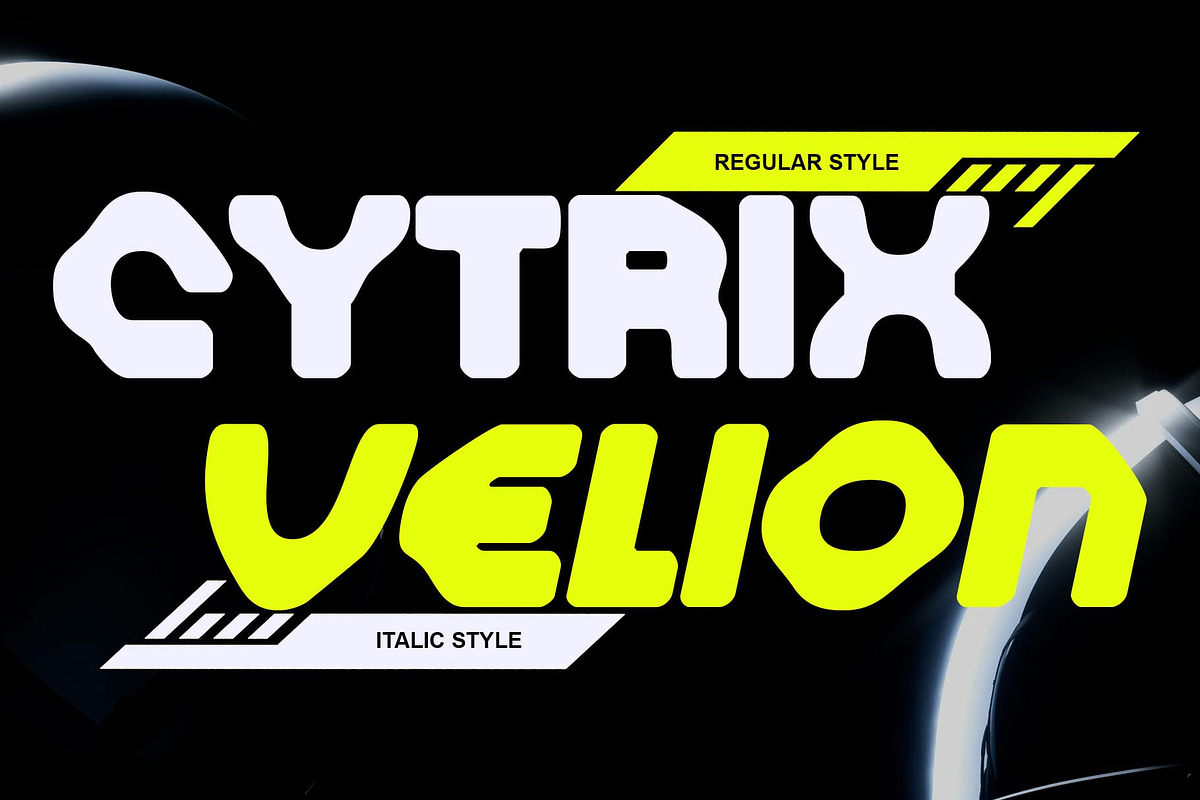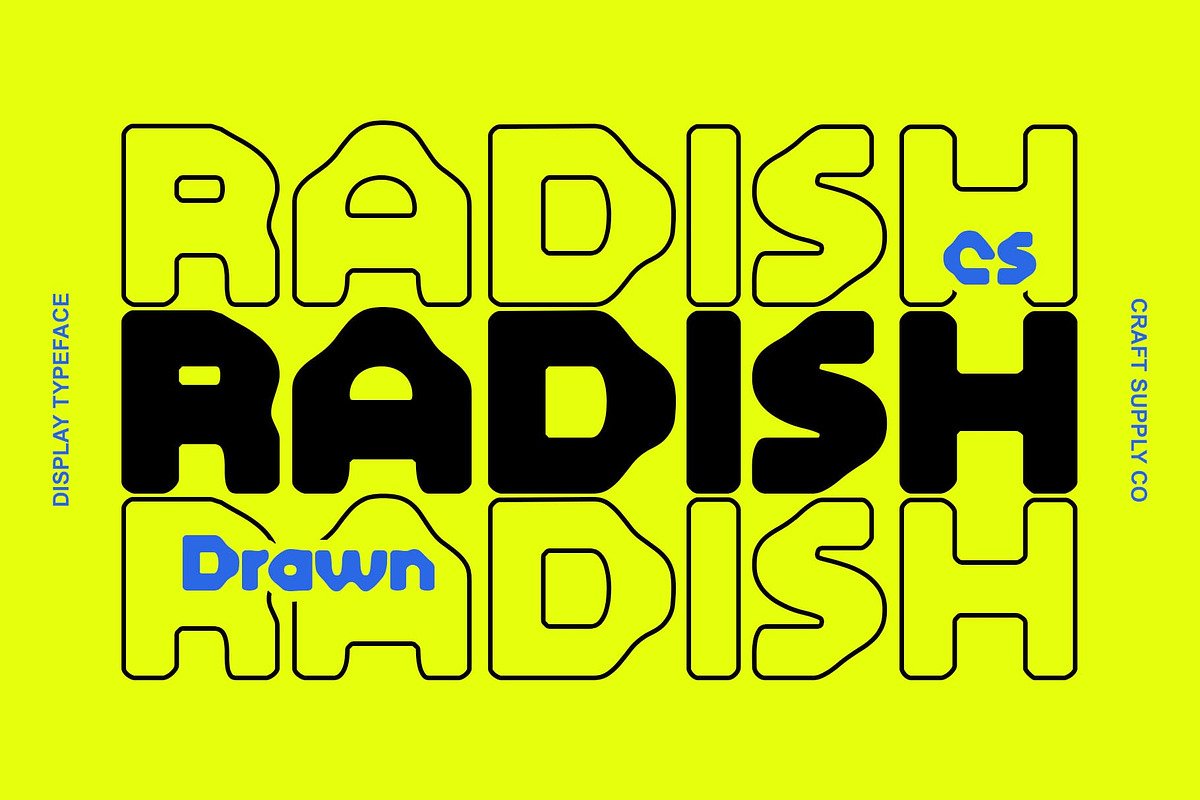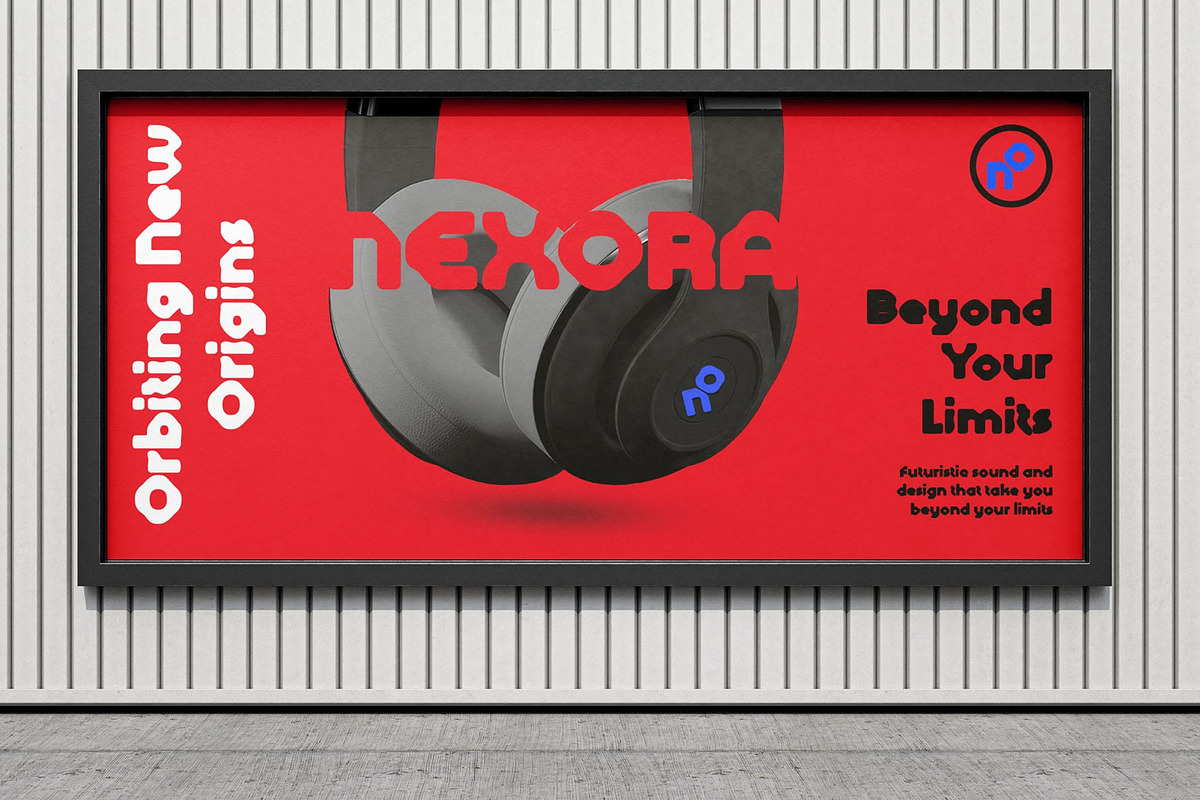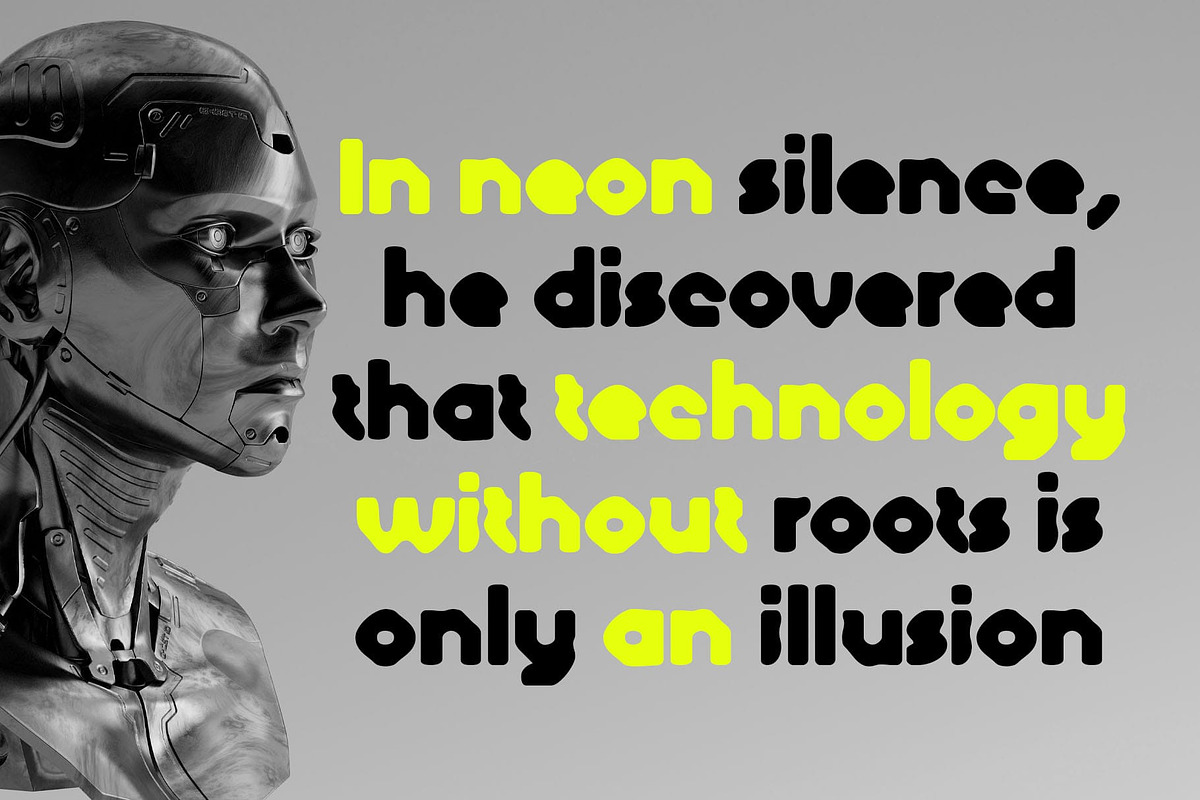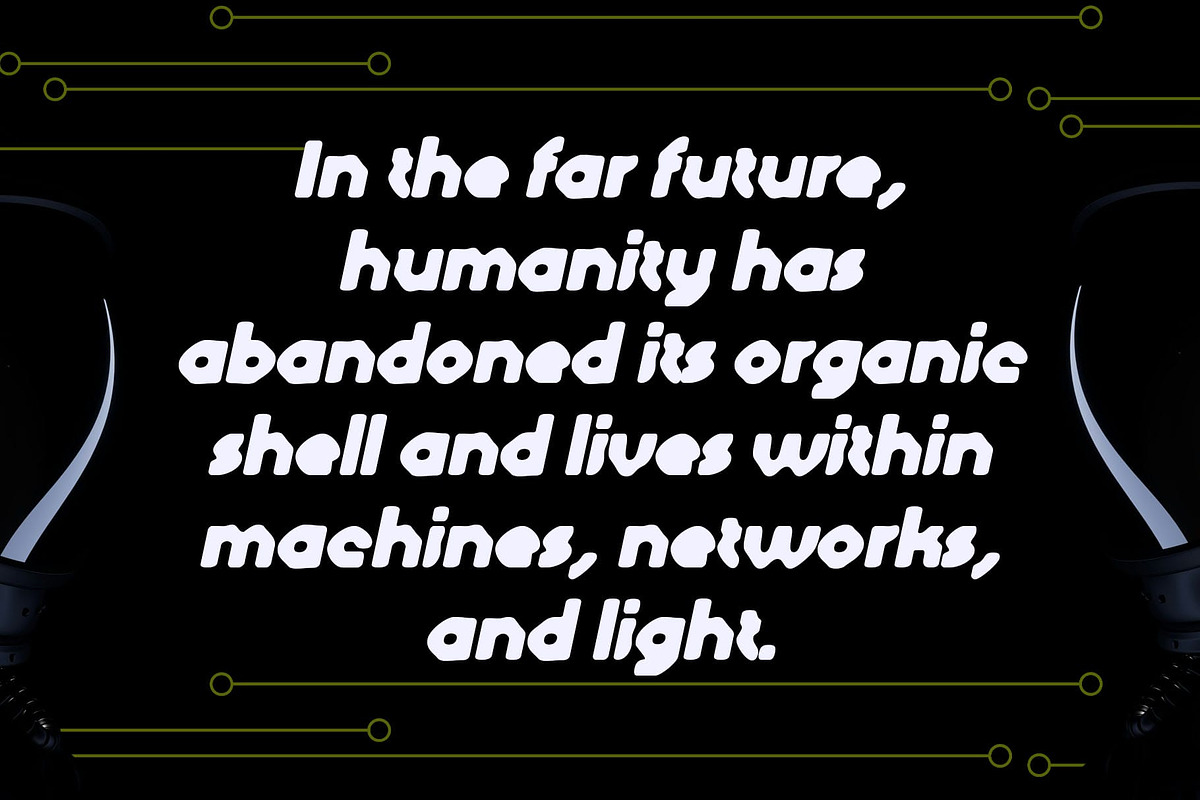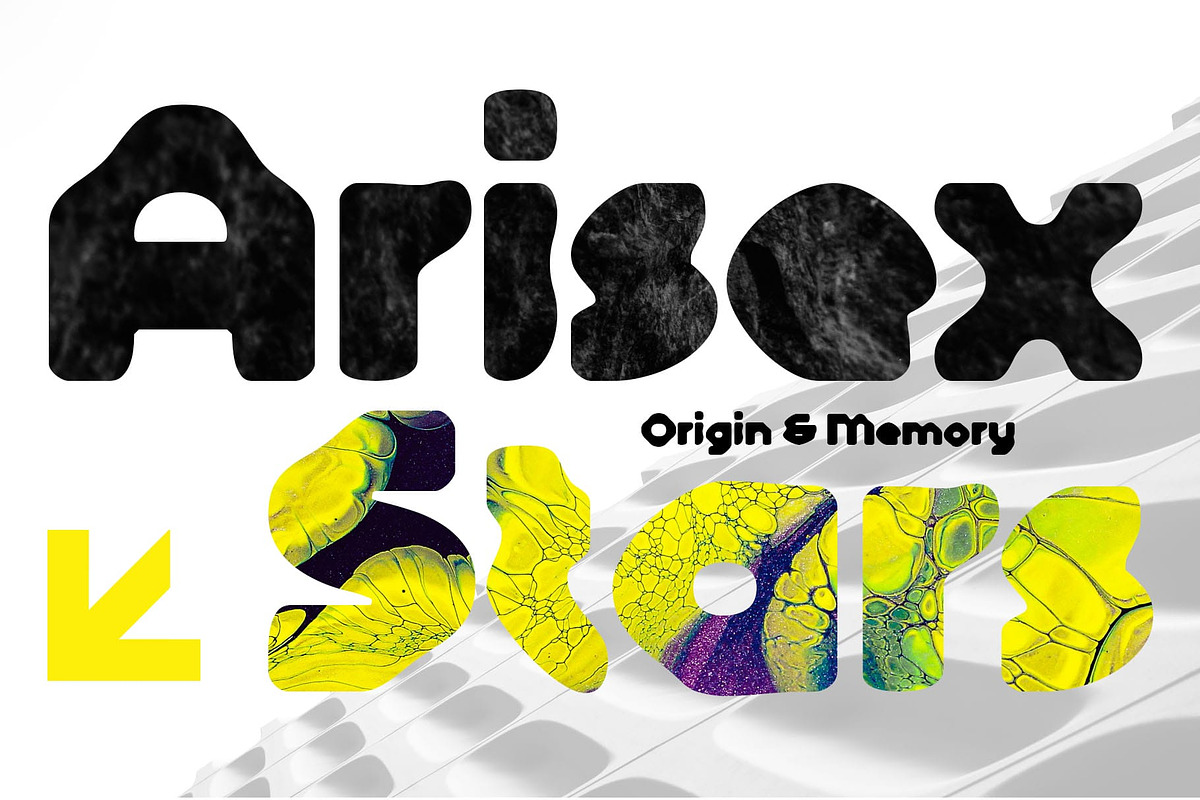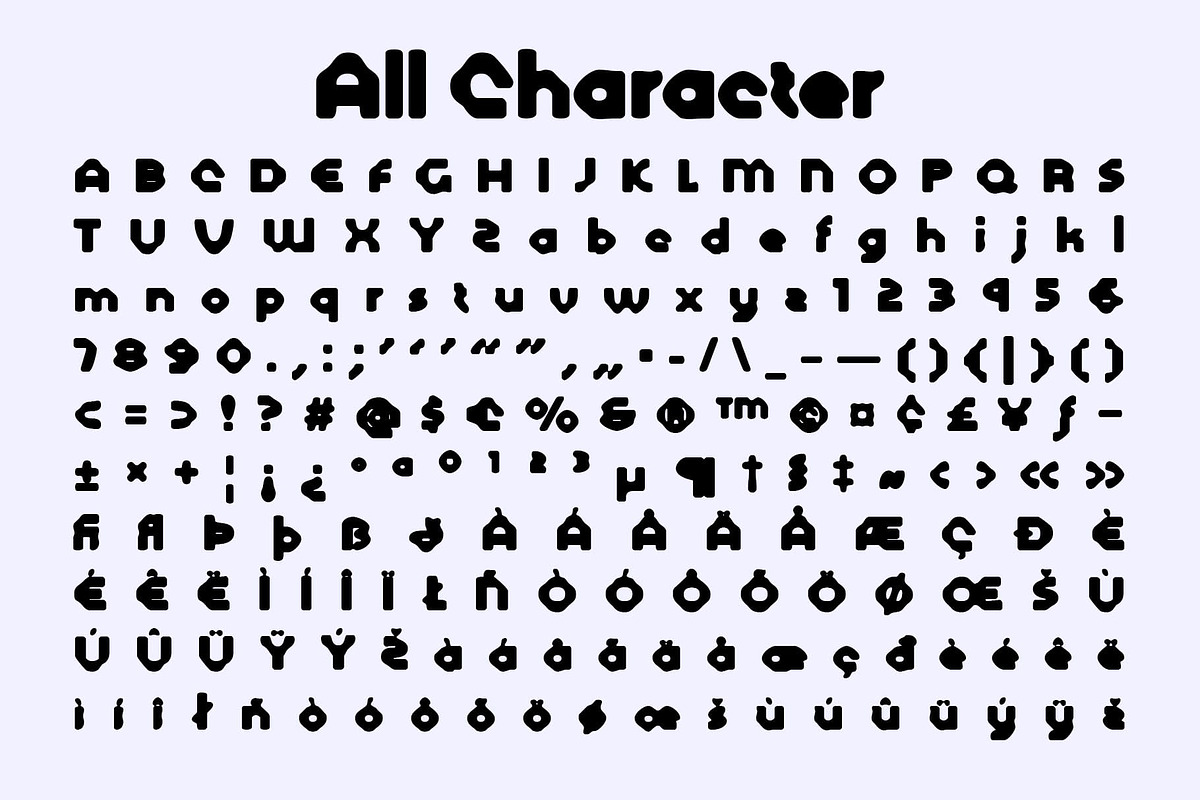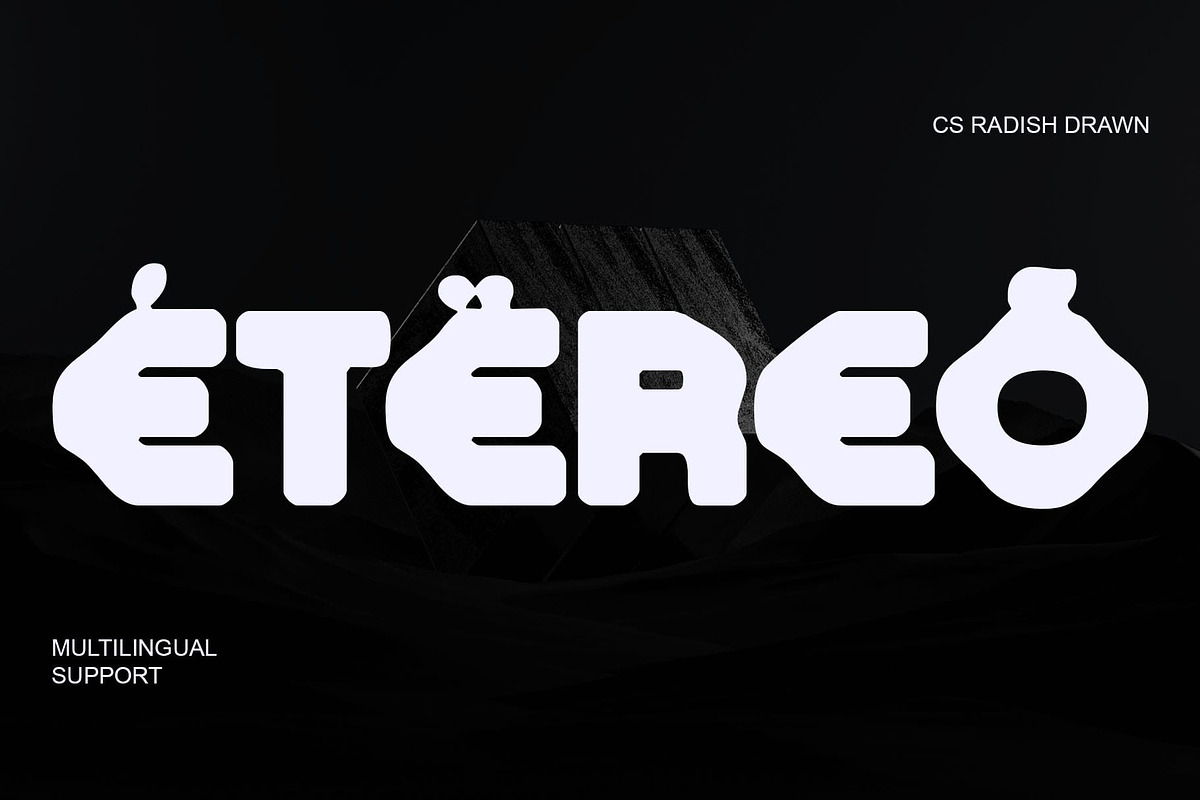
CS Radish Drawn
CS Radish Drawn – Techno-Inspired Font: Bold Futuristic Display with Drawn Energy
Futuristic Power in Every Stroke This is a techno-inspired designed to project boldness and modernity. It radiates futuristic energy that instantly commands attention. This font is ideal for projects that demand a sleek, powerful, and contemporary look, from digital interfaces to striking visual campaigns.
Hand-Drawn Character for Expressive Edge Unlike sterile digital typefaces, This font carries a hand-drawn texture that adds depth and personality to its modern construction. The drawn finish creates a balance between precision and artistry, giving your designs a unique handmade flair while maintaining a forward-looking aesthetic.
Perfect for Bold Branding and Logos Whether you’re building a futuristic brand identity, designing logos with impact, or crafting standout poster headlines, and delivers. Its bold weight and condensed sans serif structure ensure that your text remains both legible and visually striking, even at larger scales. This makes it a natural choice for branding, packaging, and promotional graphics where memorability is essential.
Versatile for Modern Creative Applications This font is more than just a futuristic font it’s a versatile design tool. From technology startups and fashion brands to music posters and digital artwork, it adapts seamlessly to various creative needs. Its combination of bold geometry, futuristic attitude, and handmade detailing ensures that every project feels modern, dynamic, and unforgettable.